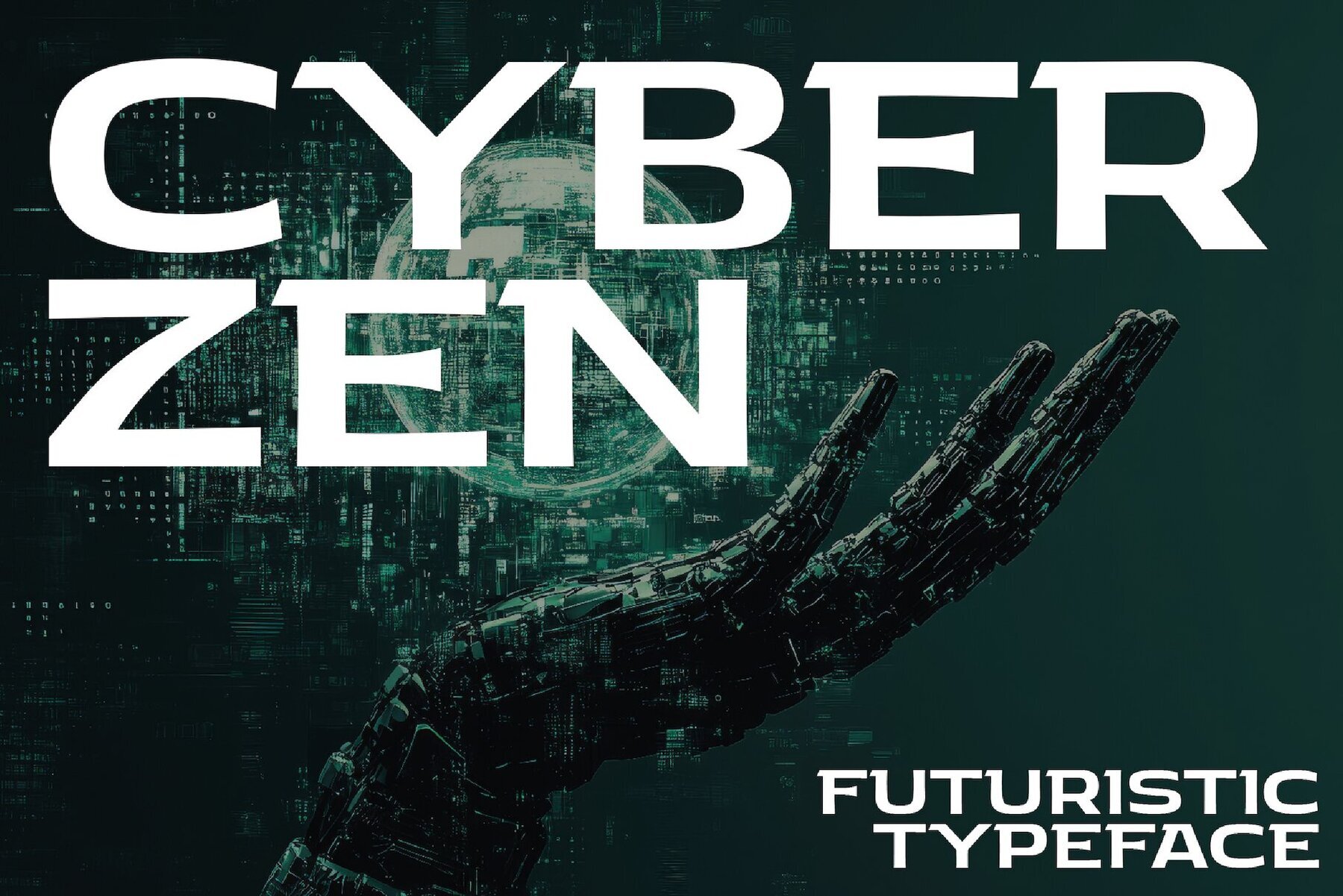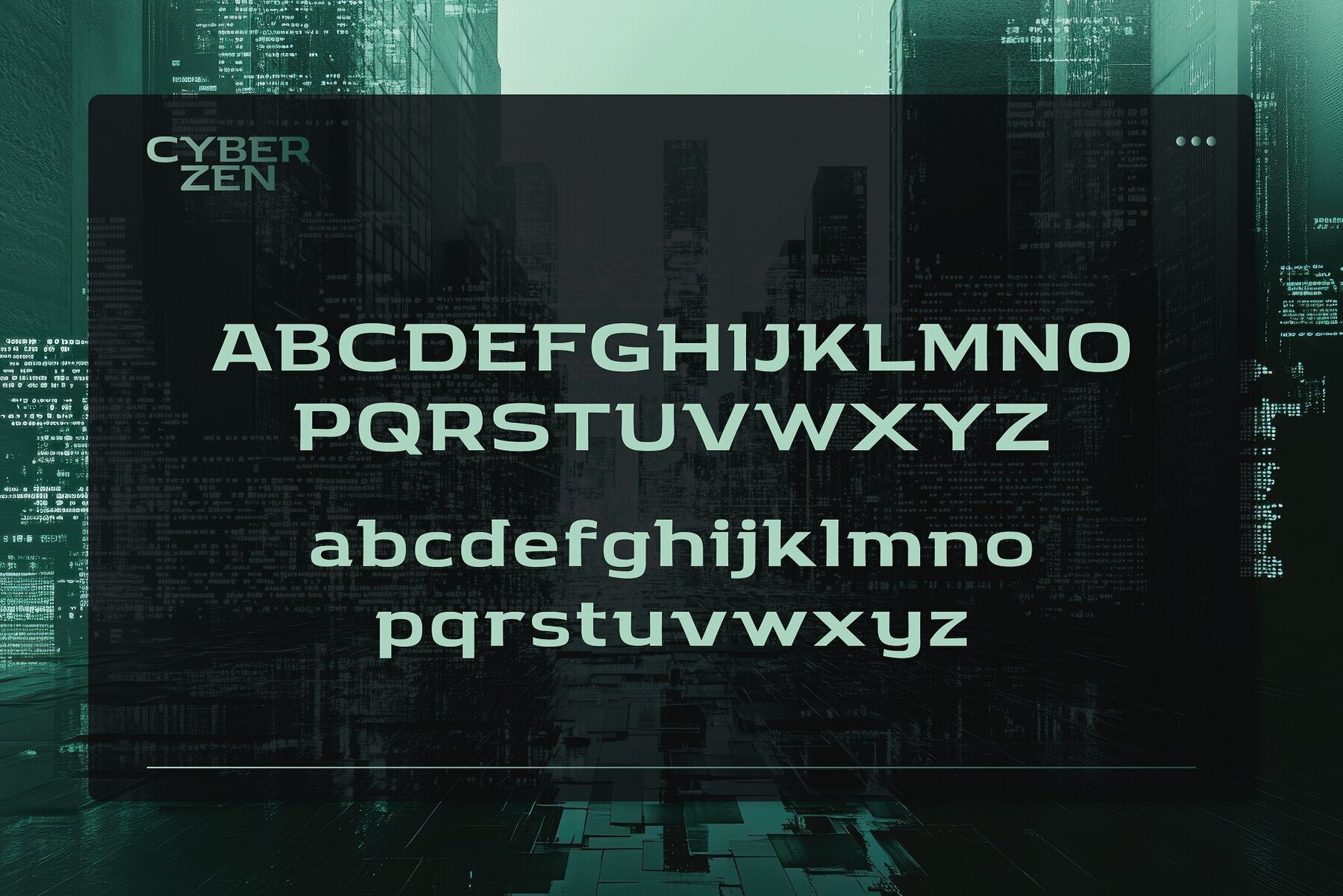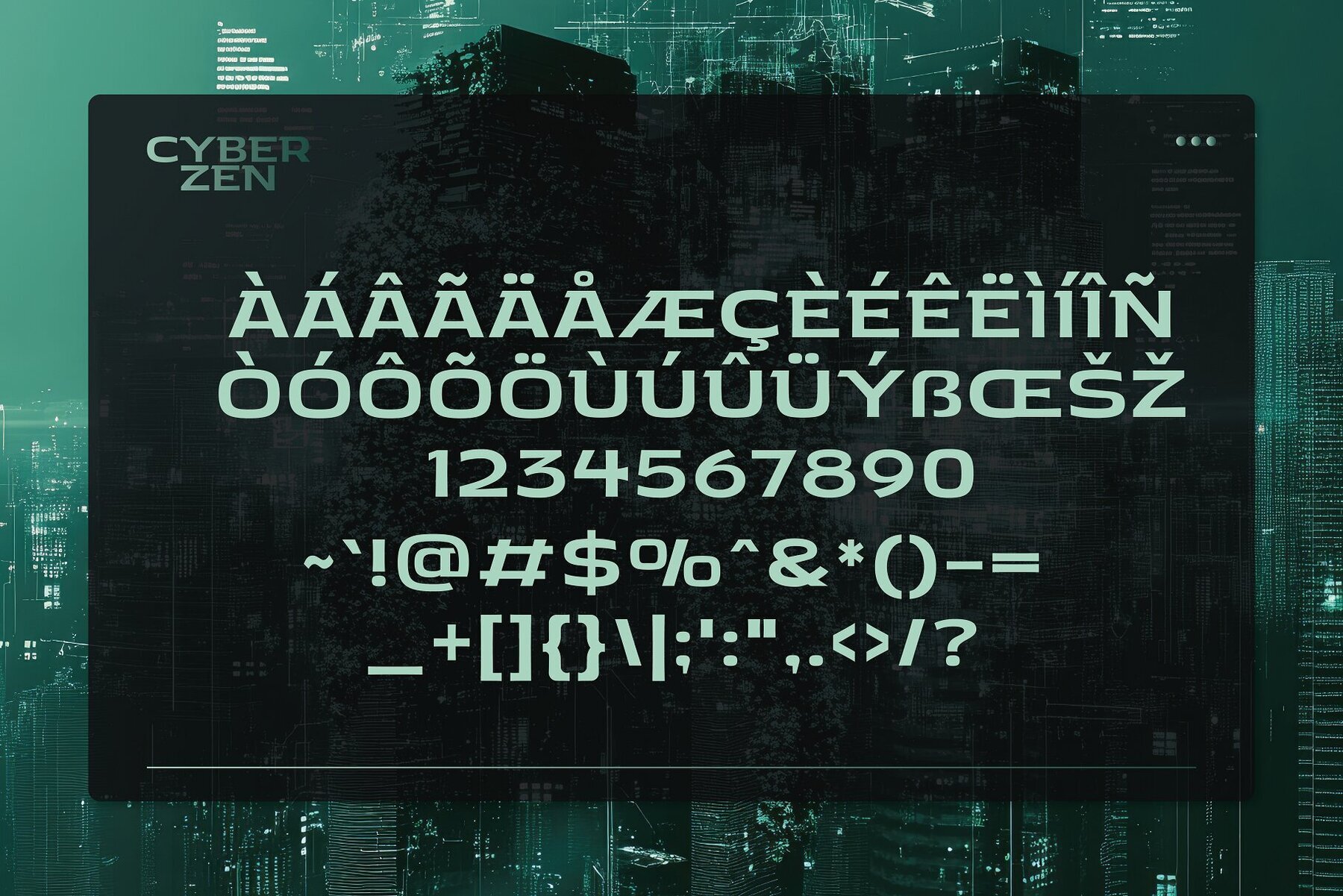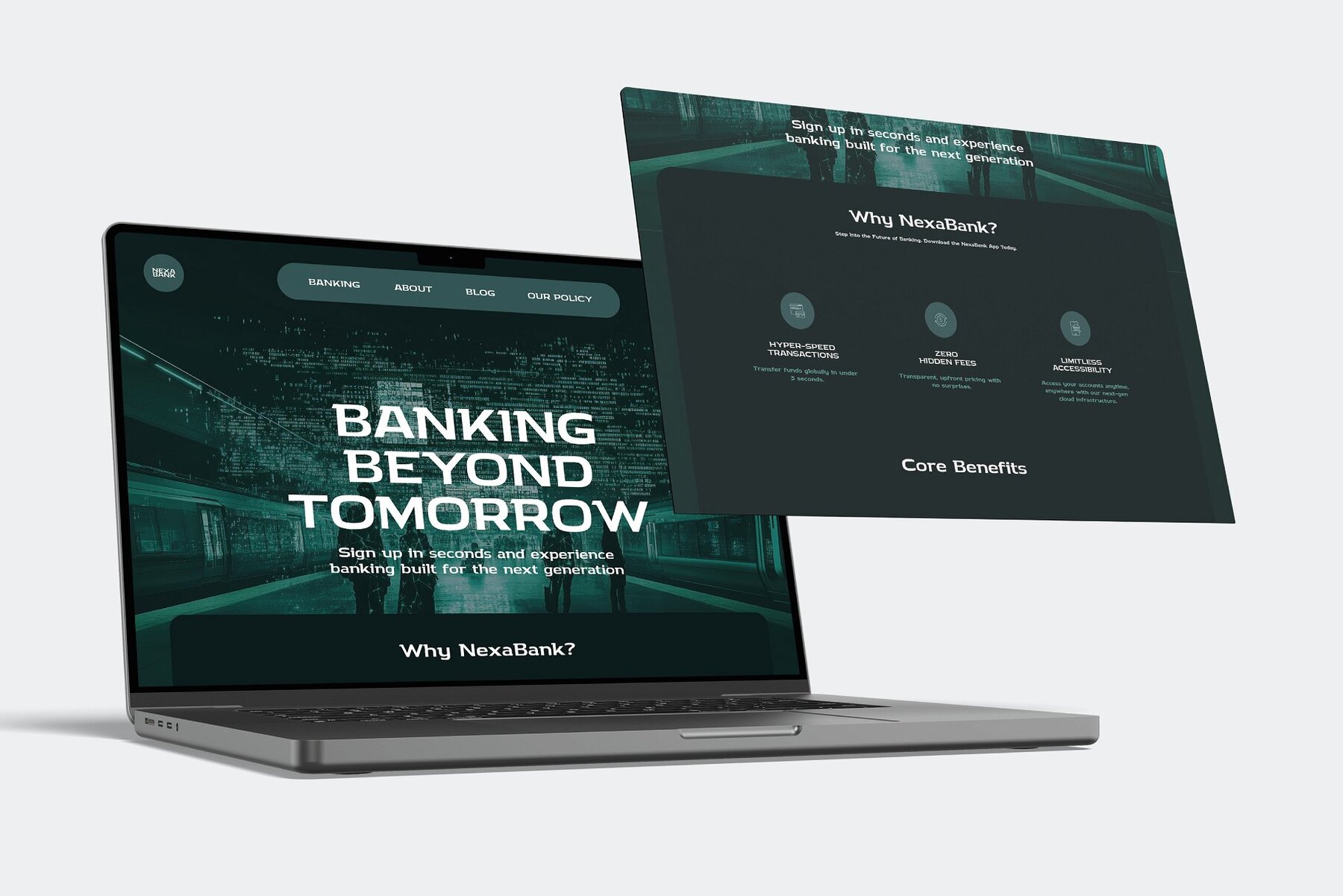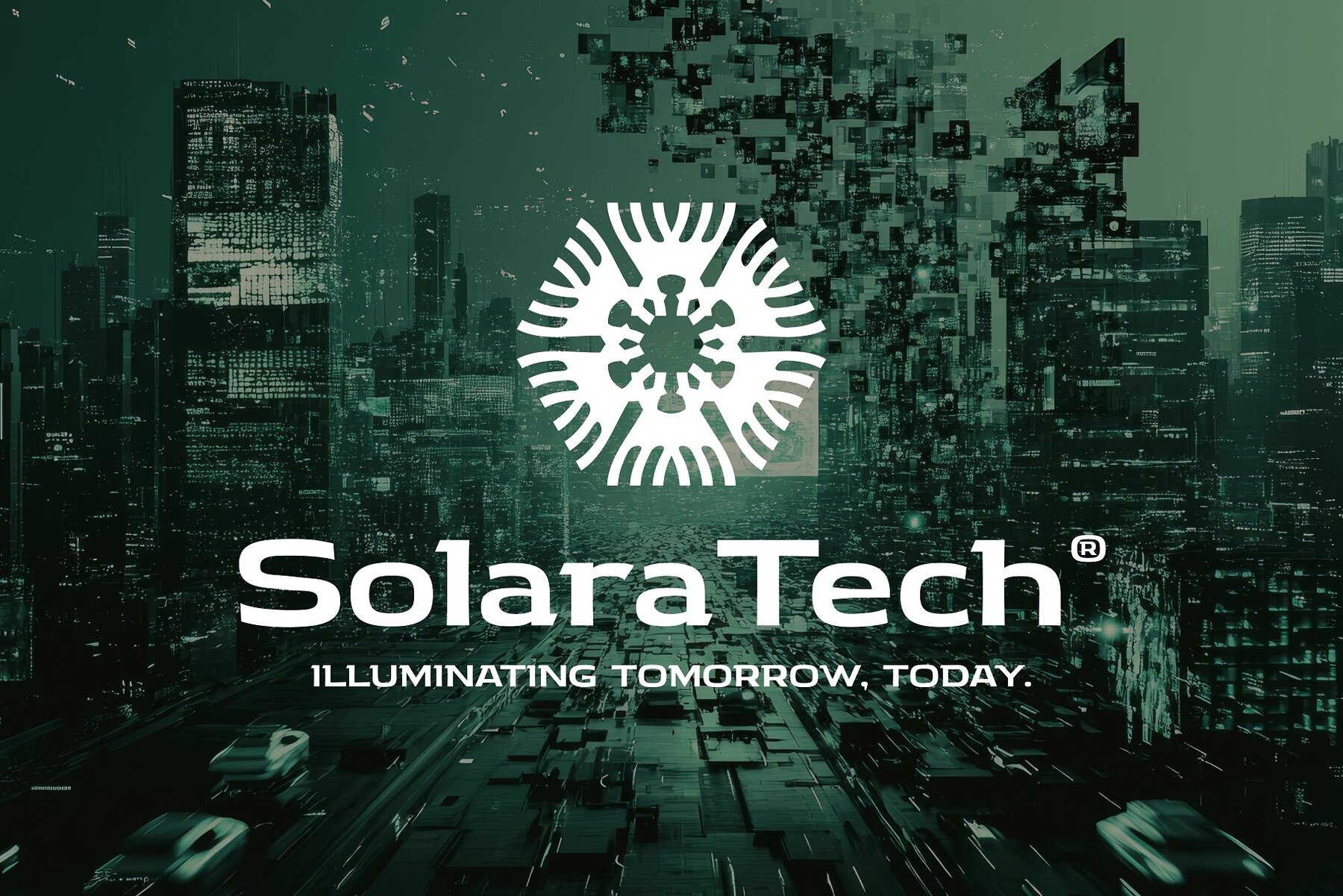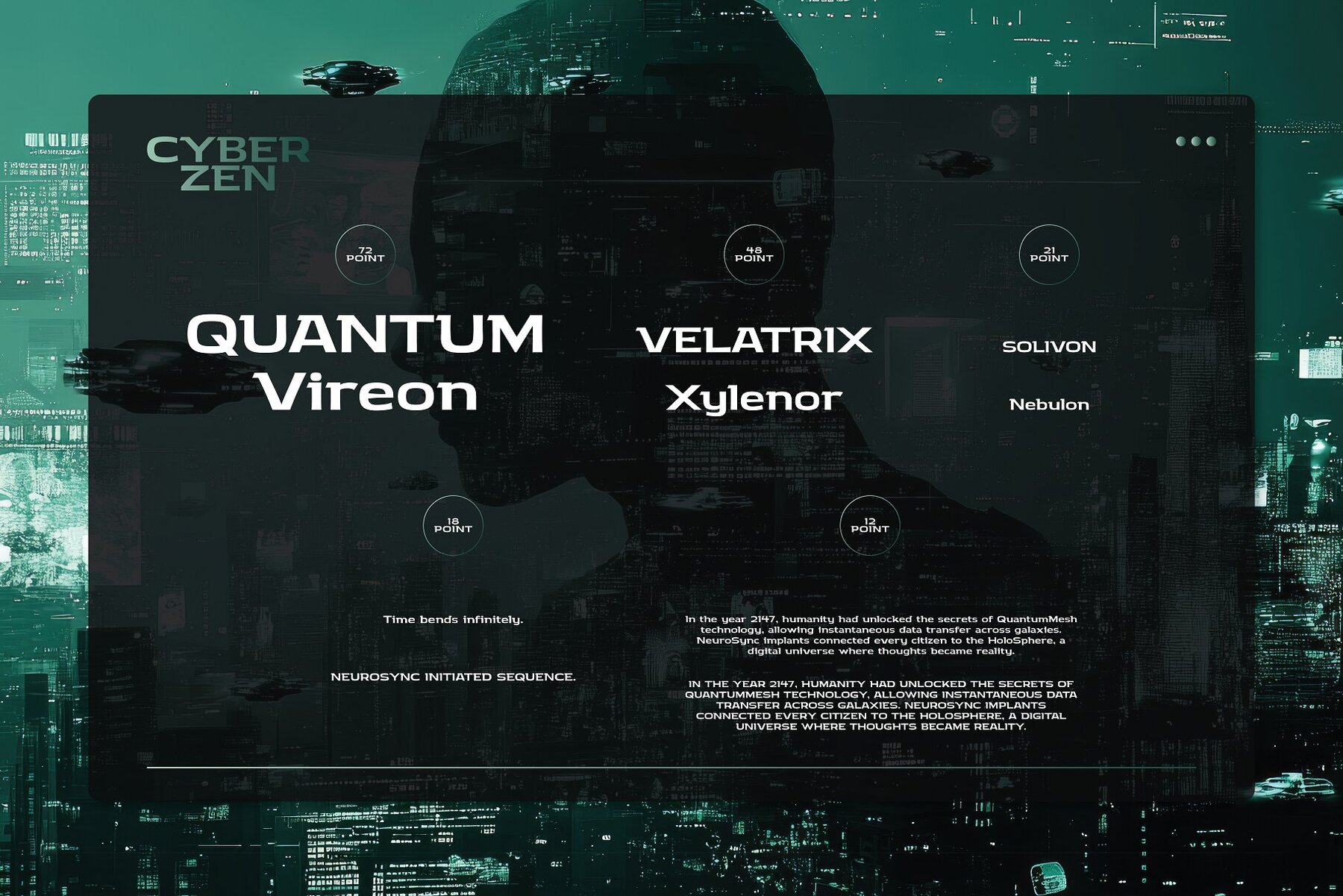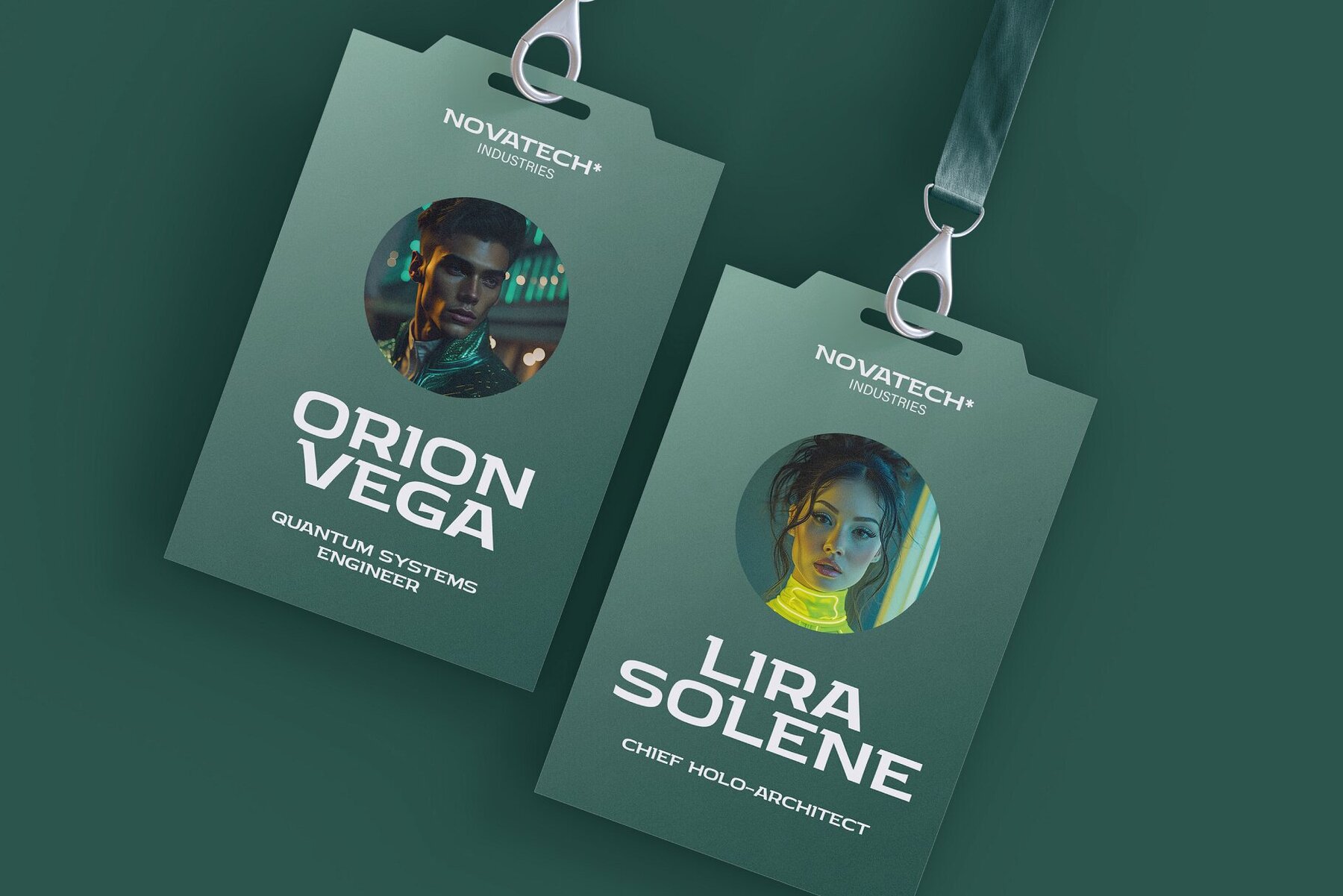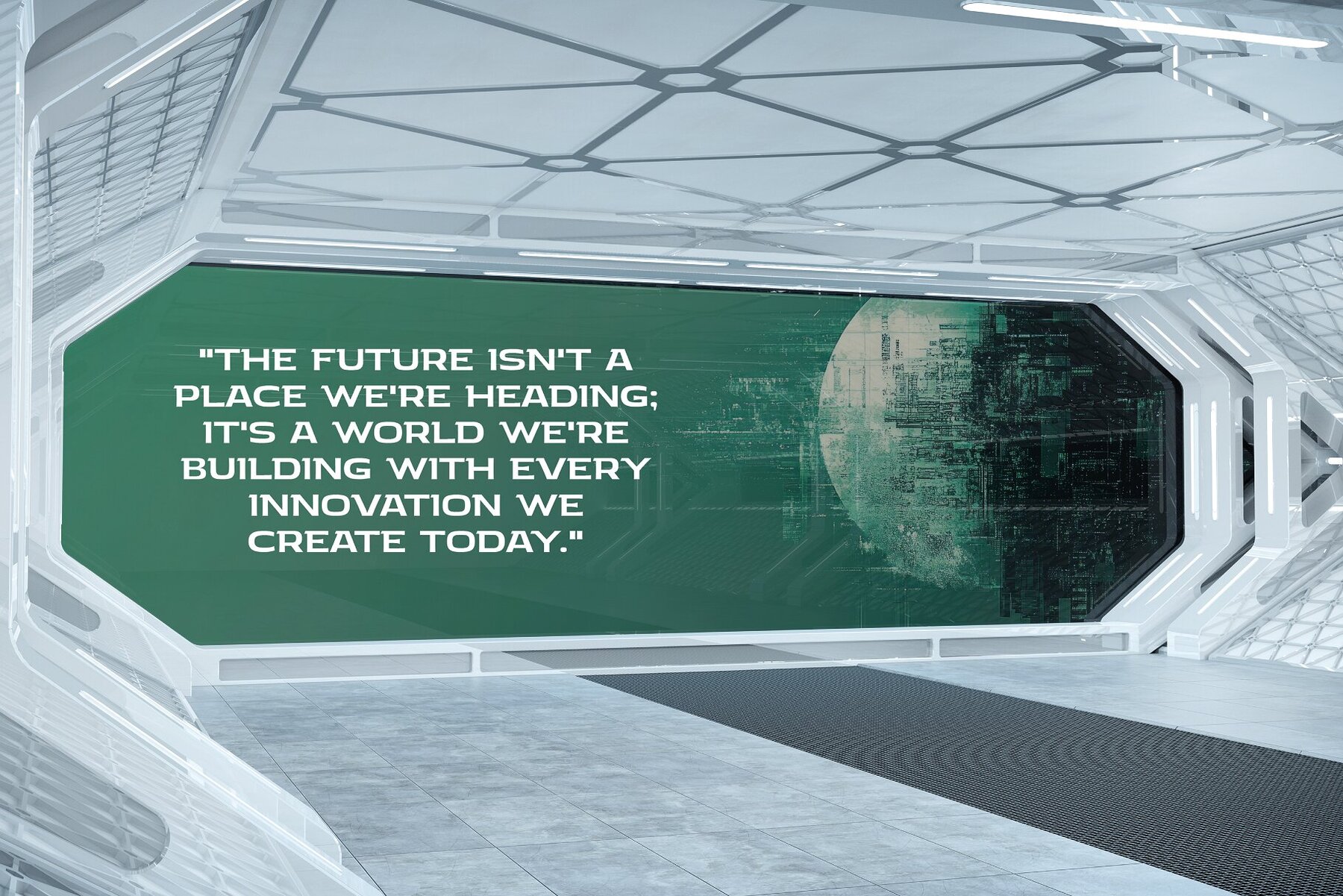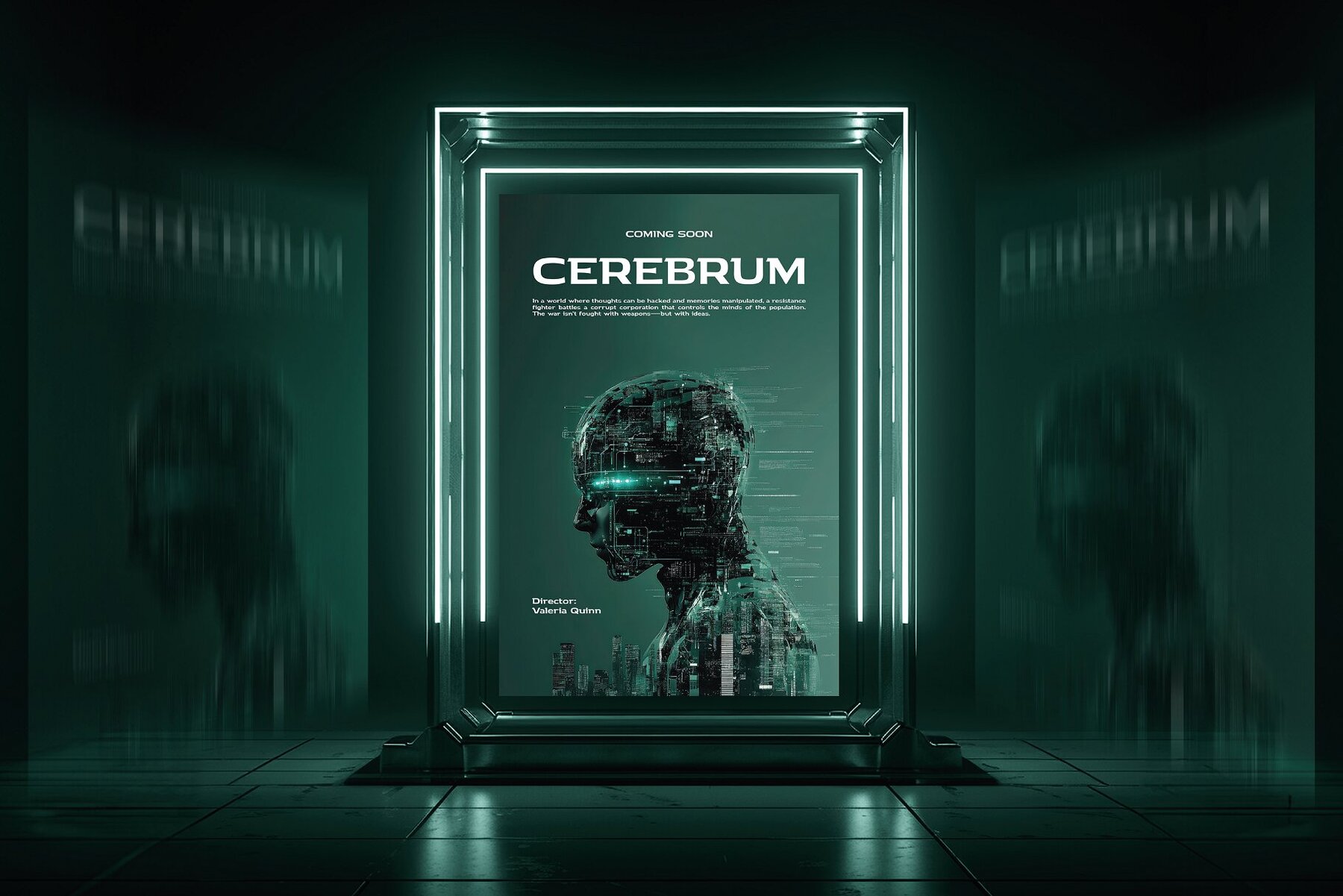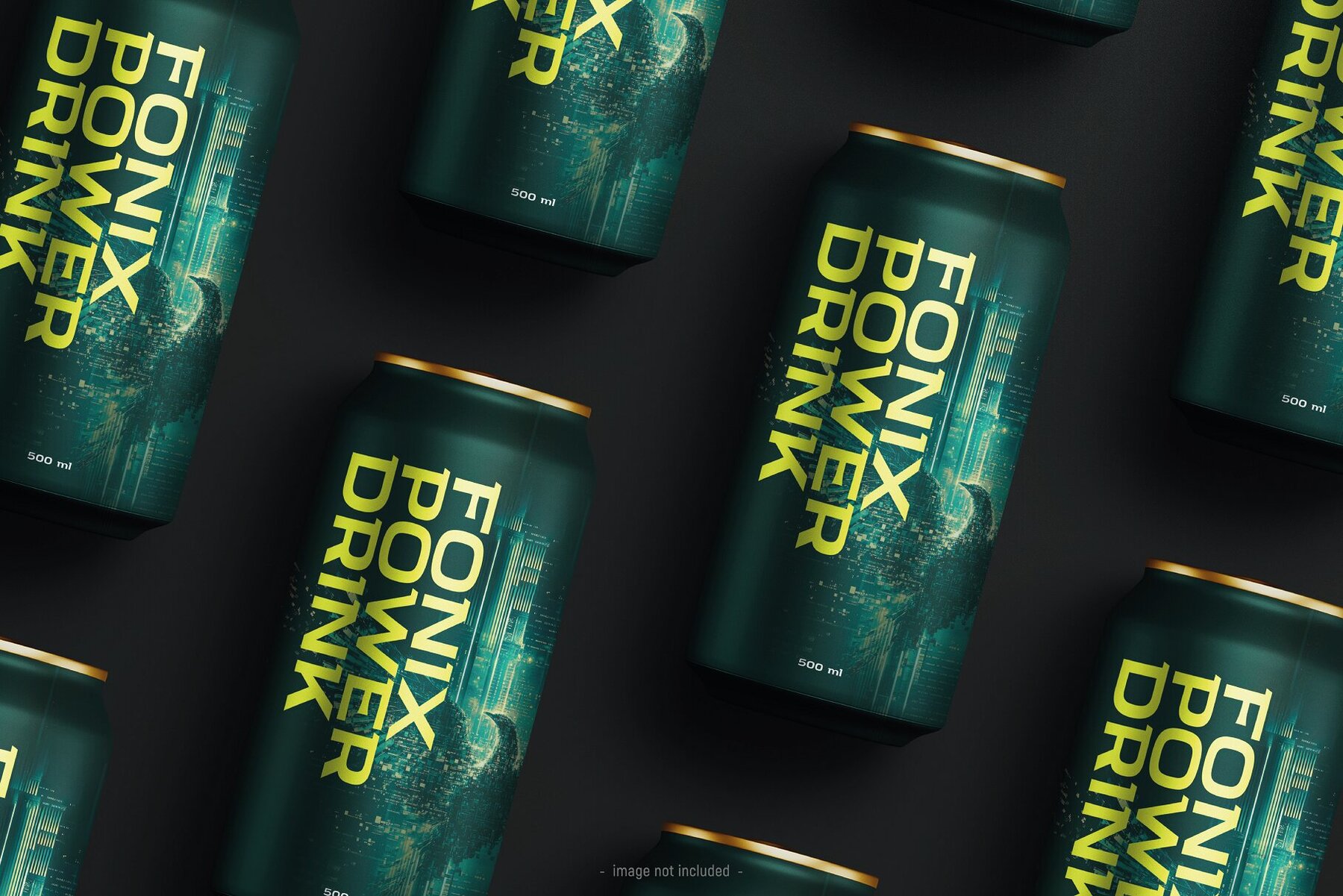
Cyber Zen Font
Cyber Zen
Cyber Zen is a futuristic typeface that captures the essence of sleek minimalism and contemporary design. With its clean lines and well-balanced proportions, it serves as an ideal choice for innovative branding, advanced space projects, and visionary digital experiences. This font seamlessly integrates into designs focused on tech, sci-fi, or modern minimalism, offering a striking yet subtle aesthetic that radiates sophistication and innovation.
Cyber Zen fuses sharpness with serenity, making it an excellent choice for creatives looking to infuse modernity into their work. Its design is both forward-thinking and understated, perfect for those aiming to bring a futuristic edge to their projects without compromising on elegance.